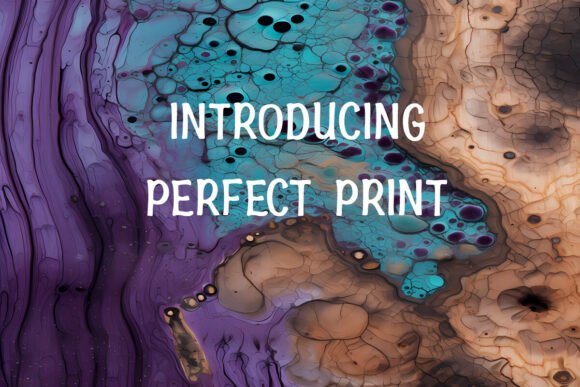
Introduction to Perfect Print Font Font
Fonts play a crucial role in design, and the Perfect Print Font font is a typeface that brings both character and versatility to any project. Whether you’re working on a branding project, a website, or a print design, the Perfect Print Font font offers a unique style that can elevate your work.
Immerse yourself in the world of elegant typography with Perfect Print.
This versatile font set exemplifies sophistication and style, perfect for an array of design applications Whether youβre crafting eye-catching event posters or creating attention-grabbing social media posts, Perfect Print will make your work stand out.
Key Features of Perfect Print Font Font
Why Choose Perfect Print Font Font?
The Perfect Print Font font is more than just a typeface β it’s a design tool that helps you communicate your message with style and clarity. Its unique character set and versatile design make it suitable for a wide range of applications, from elegant invitations to bold headlines.
With its carefully crafted letterforms and balanced proportions, the Perfect Print Font font ensures readability and visual appeal across all mediums.
What makes Perfect Print Font font special?
The Perfect Print Font font stands out with its unique design, exceptional readability, and versatility across various design applications.